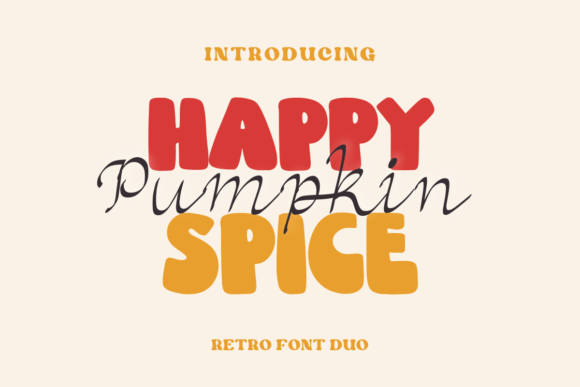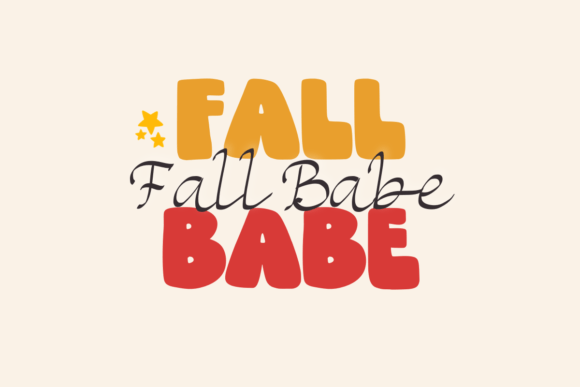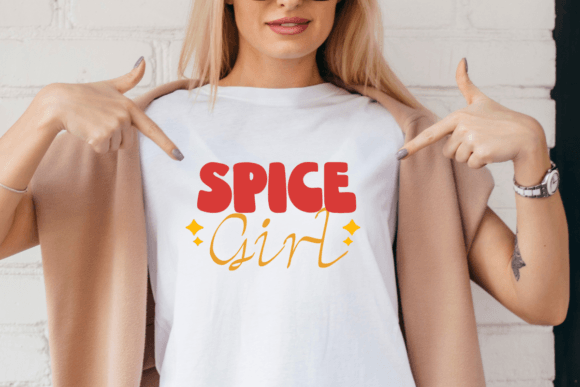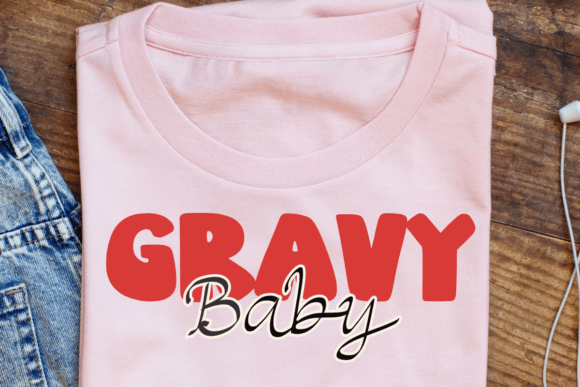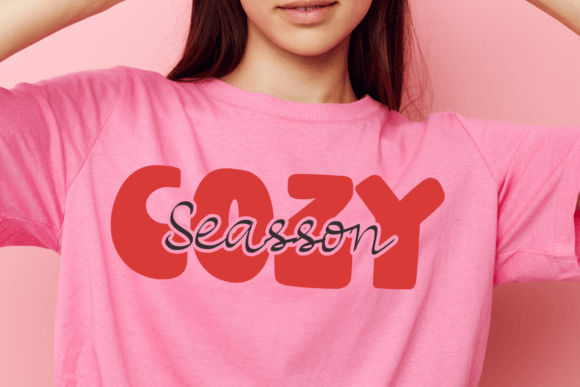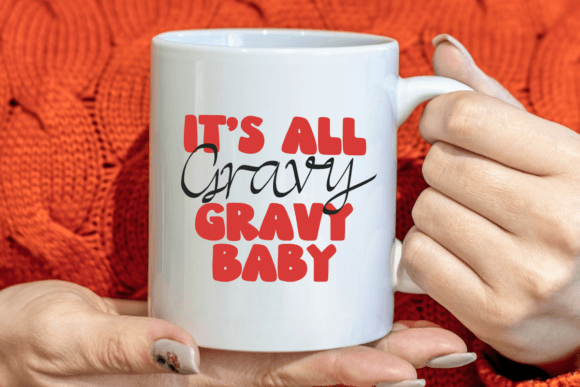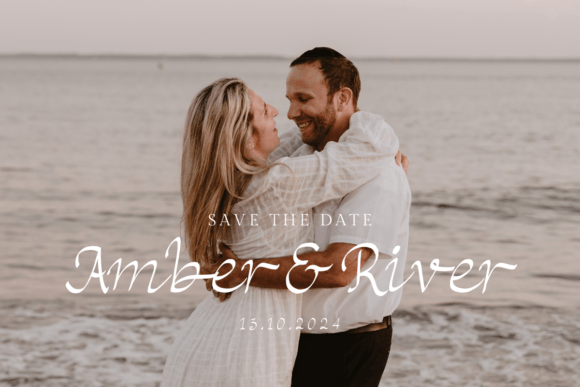
Spicing Up Your Designs: The Joy of Happy Pumpkin Spice Font
Who hasn’t had that moment where they stumble upon a font that instantly sparks creativity? Maybe it’s the perfect quote for a design project, or a font that makes your words stand out on a t-shirt. For designers, the search for that elusive ‘font magic’ is a constant quest. And, we’re excited to share with you a font that’s sure to bring a smile to your face – the Happy Pumpkin Spice Font.
This delightful duo font combines a display script and monoline style to create a unique, retro look that’s perfect for adding a touch of whimsy to your designs. Whether you’re creating quotes, t-shirts, tote bags, or greeting cards, the Happy Pumpkin Spice Font is sure to add a dash of fun and personality to your work.
Key Features of Happy Pumpkin Spice Font
- Font Family: Happy Pumpkin Spice Font is a unique, custom-designed font family consisting of 6 styles: Regular, Italic, Bold, Bold Italic, Condensed, and Condensed Italic.
- Unique Characteristics: Features a warm, inviting aesthetic with a blend of autumnal and spicy elements, making it perfect for fall-themed designs, branding, and marketing materials.
Designer Review: Happy Pumpkin Spice Font
I have to say, I was a bit skeptical about the Happy Pumpkin Spice Font at first. The name alone made me raise an eyebrow, but I decided to give it a chance. Overall, I think it’s a decent font, but it has some limitations that might make it less appealing to some designers.
- ✨ Unique and playful personality: The Happy Pumpkin Spice Font is certainly eye-catching and fun to use.
- ✨ Wide range of use cases: This font is great for fall-themed projects, but it’s also suitable for other projects that need a whimsical touch.
- ✨ Good legibility: Despite its playful nature, the font is still easy to read, even at smaller sizes.
- ⚠️ Limited font weights: The Happy Pumpkin Spice Font only comes in a few font weights, which might make it less versatile for some projects.
- ⚠️ Some glyphs are a bit rough: While the font is generally well-designed, some of the glyphs could be more refined and polished.
- ⚠️ May not be suitable for formal projects: The Happy Pumpkin Spice Font is definitely more suited for casual or creative projects, and might not be the best choice for formal or professional work.
Overall, I think the Happy Pumpkin Spice Font is a fun and quirky addition to any designer’s toolkit. While it has some limitations, it’s definitely worth considering for projects that need a playful touch.
Use the Happy Pumpkin Spice Font to add a seasonal touch to your designs, such as for Halloween or fall-themed projects.
Combine the font with other autumnal elements, like leaves or pumpkins, for a cohesive look.
Wedding invitations or party decorations for a fall-themed wedding or party.
Marketing materials, such as social media posts or flyers, for a fall-related business or product.
Personal projects, such as scrapbooking or card-making, for a fall-themed event or holiday.